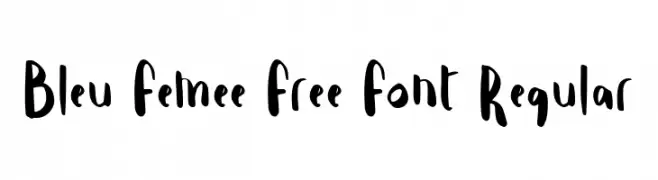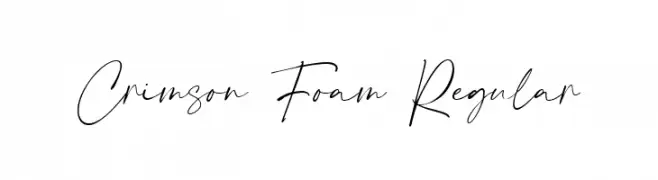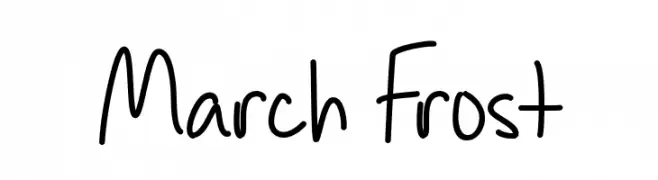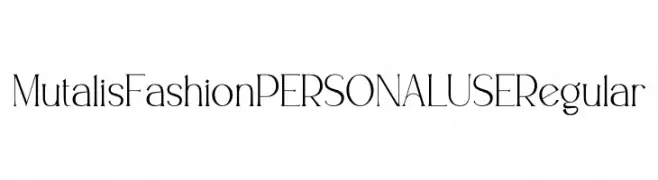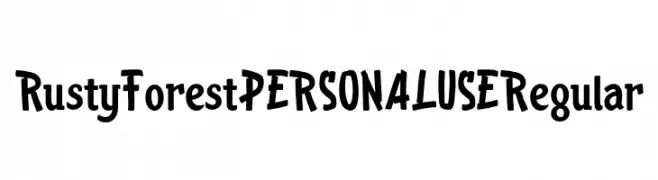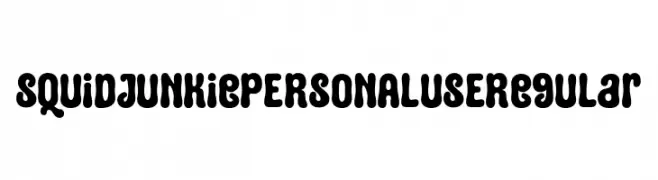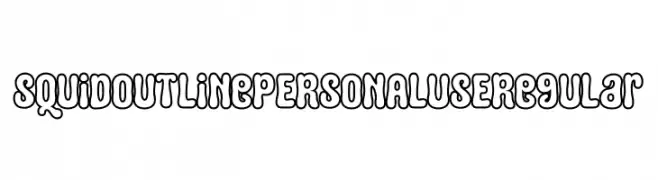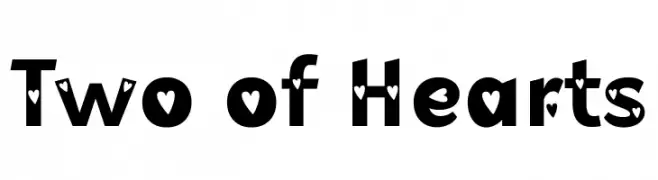
An elegant, flowing script font with a natural handwriting style.
A playful, handwritten font with bold, irregular strokes and a whimsical style.
An elegant script font with flowing cursive strokes and decorative swashes.
A flowing, cursive font with an elegant and dynamic handwritten style.
A bold, playful font with a hand-drawn, rustic charm.
A bold, decorative font with heart-shaped cutouts in each character.
A playful, casual handwritten font with smooth, flowing lines.
A playful, bold outline font with a whimsical, bubbly style.
A bold, playful font with thick, rounded strokes and a retro vibe.
A modern, elegant font with high contrast and refined curves.